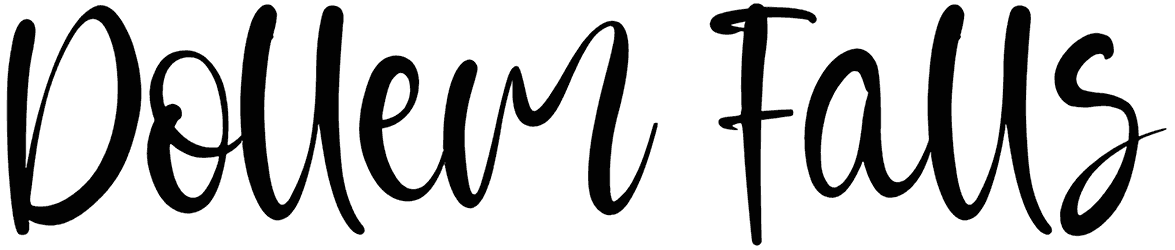
Dollem Falls Font
Let’s illustrate a modern and appealing layout with a beautiful handwritten font. This offer, named Dollem Falls, has humble and smooth lettering and can reflect a chic mood. With the almost full support of characters, this cursive font would be an apt choice for many subjects and novel projects such as posters, logos, magazines, apparel, and so on.